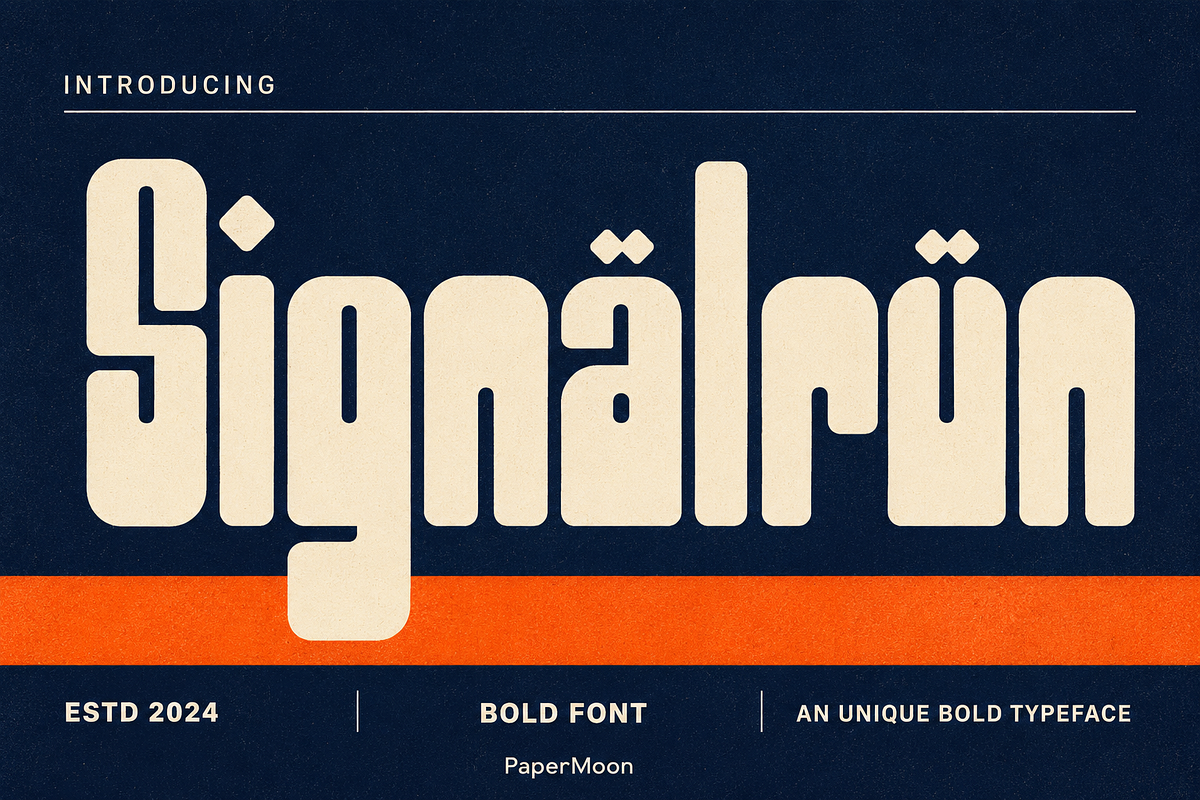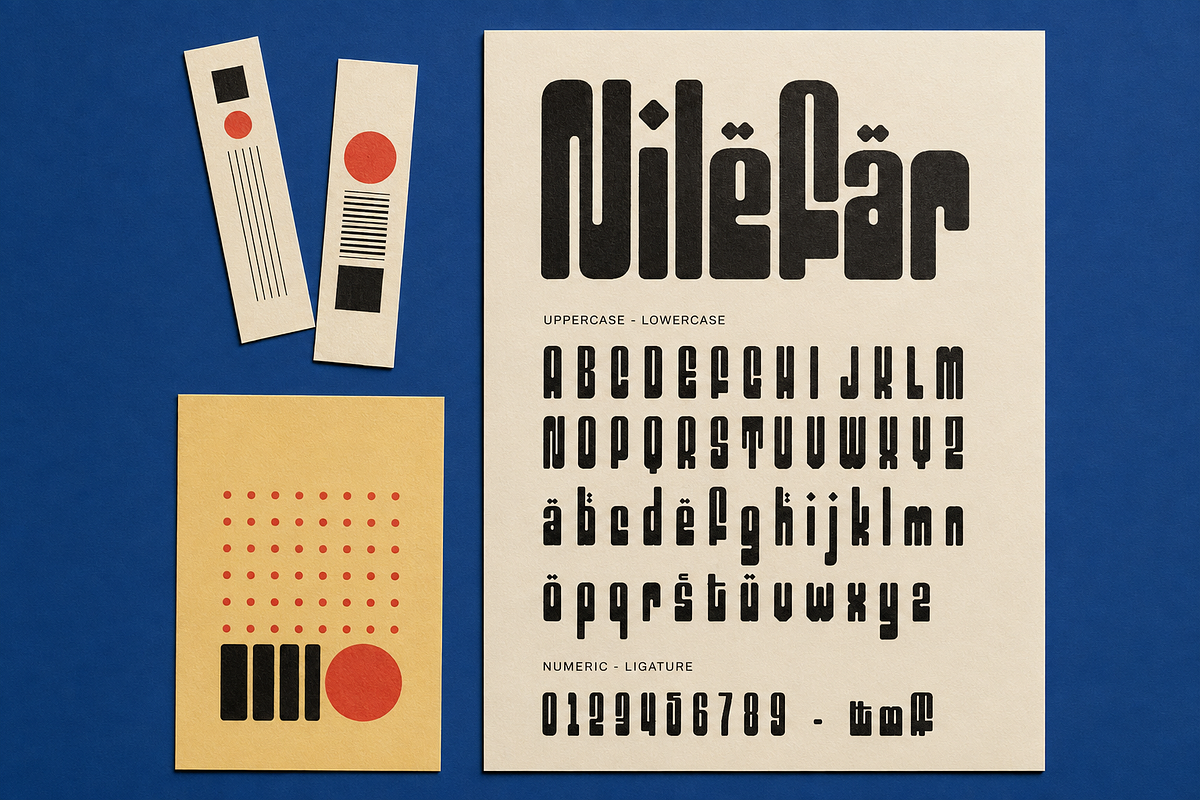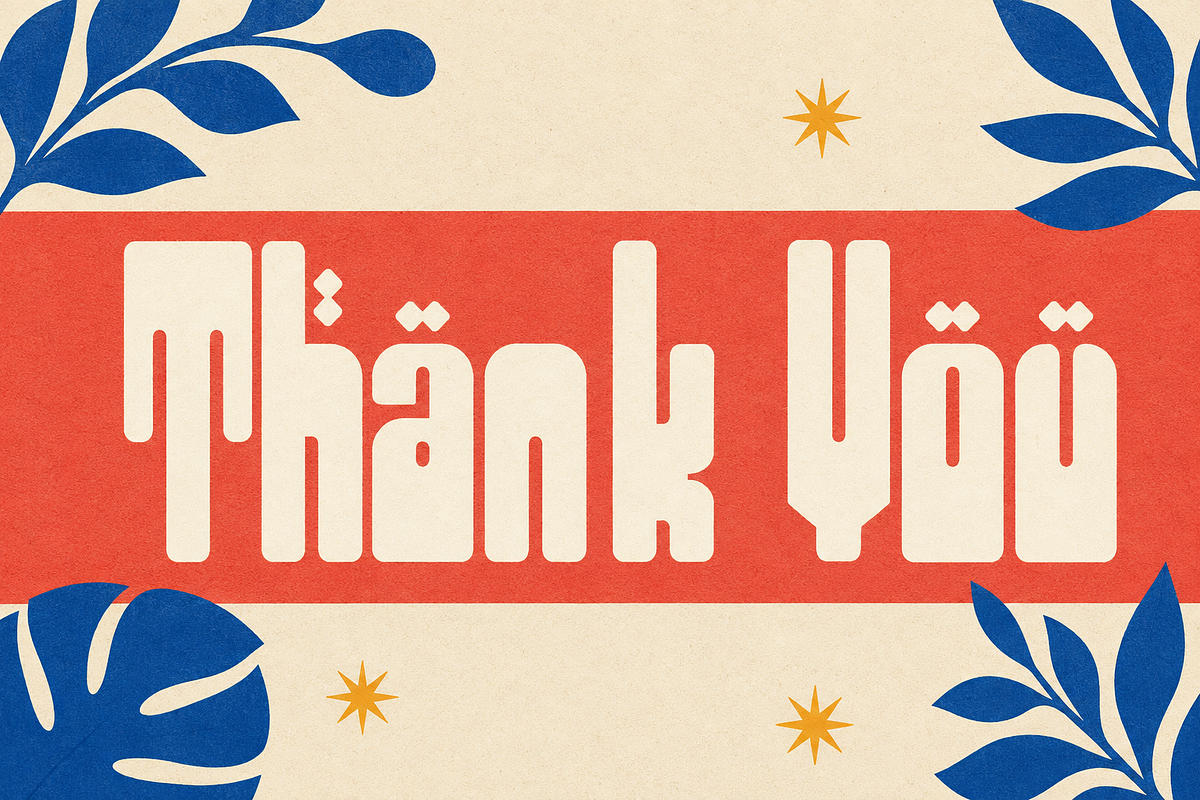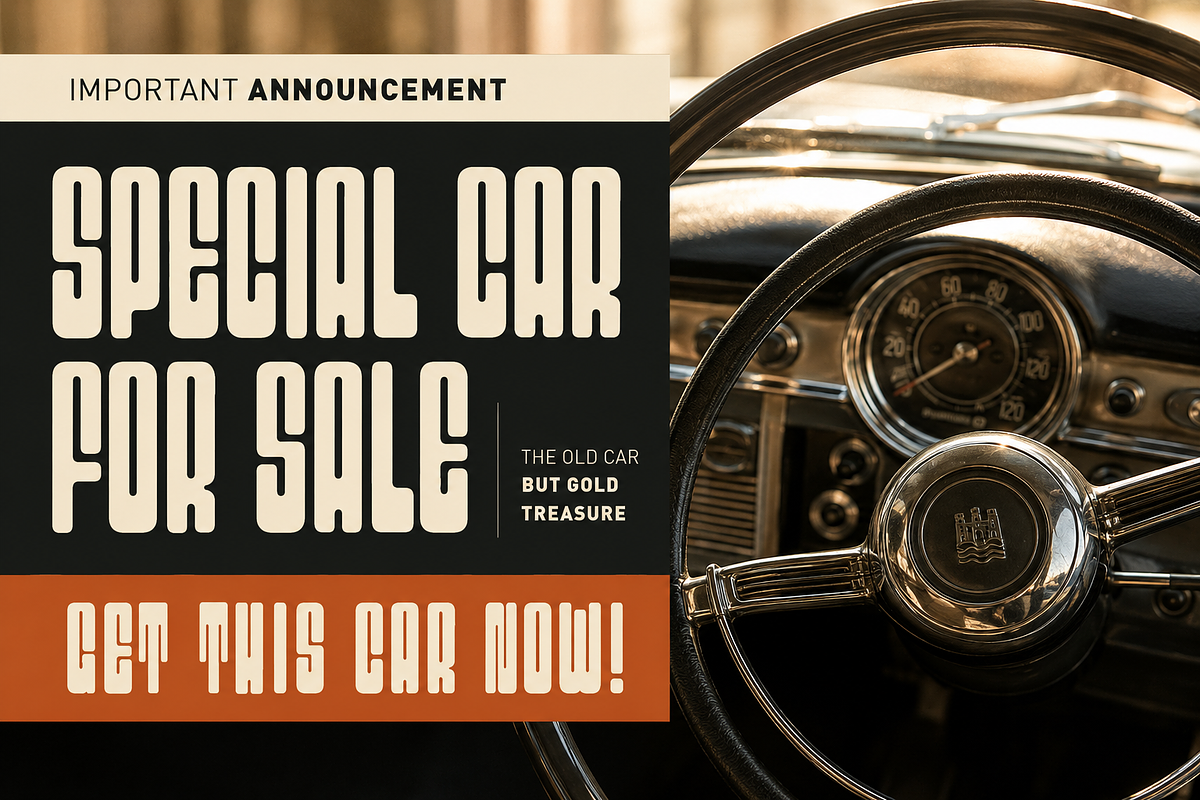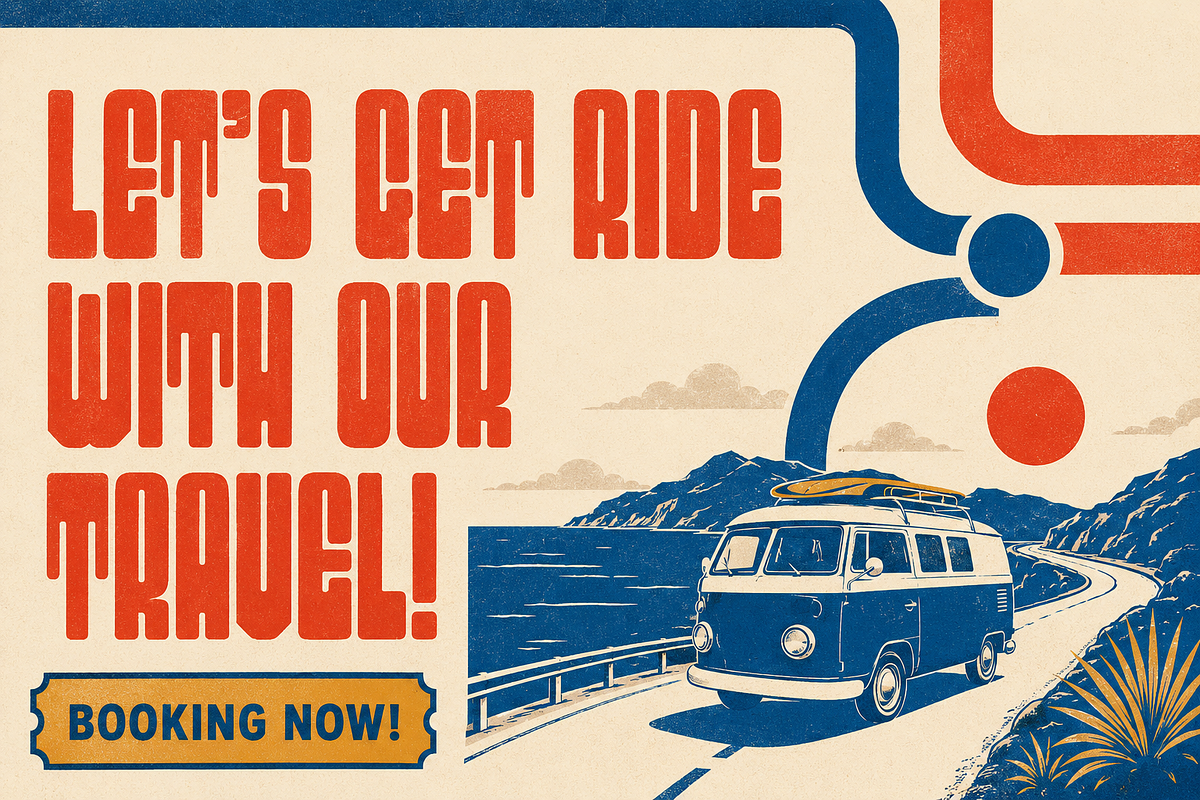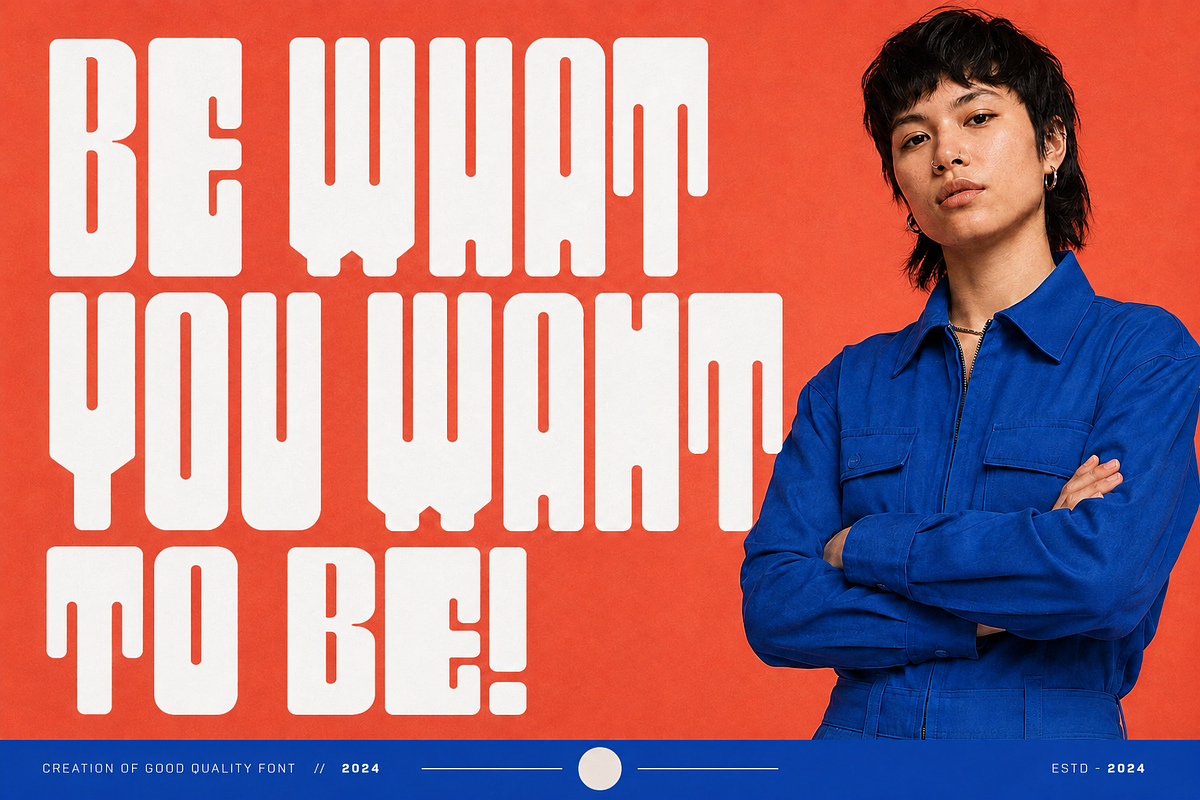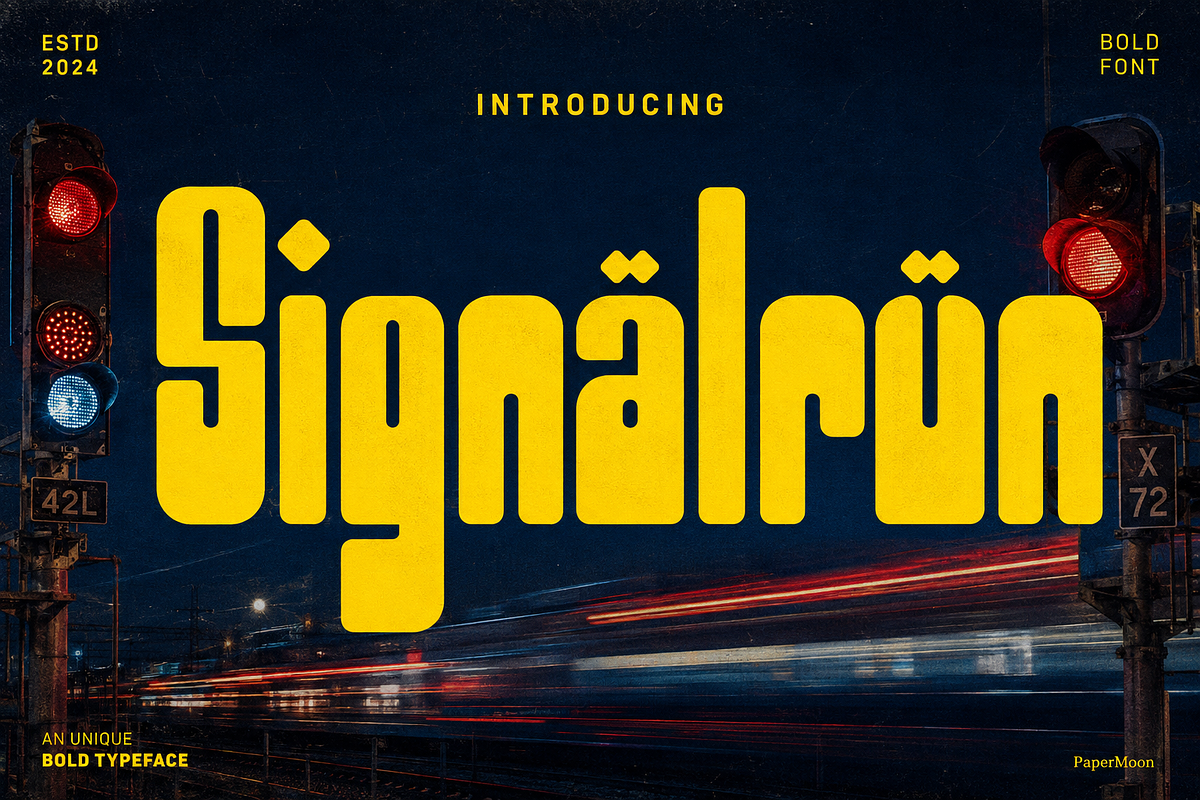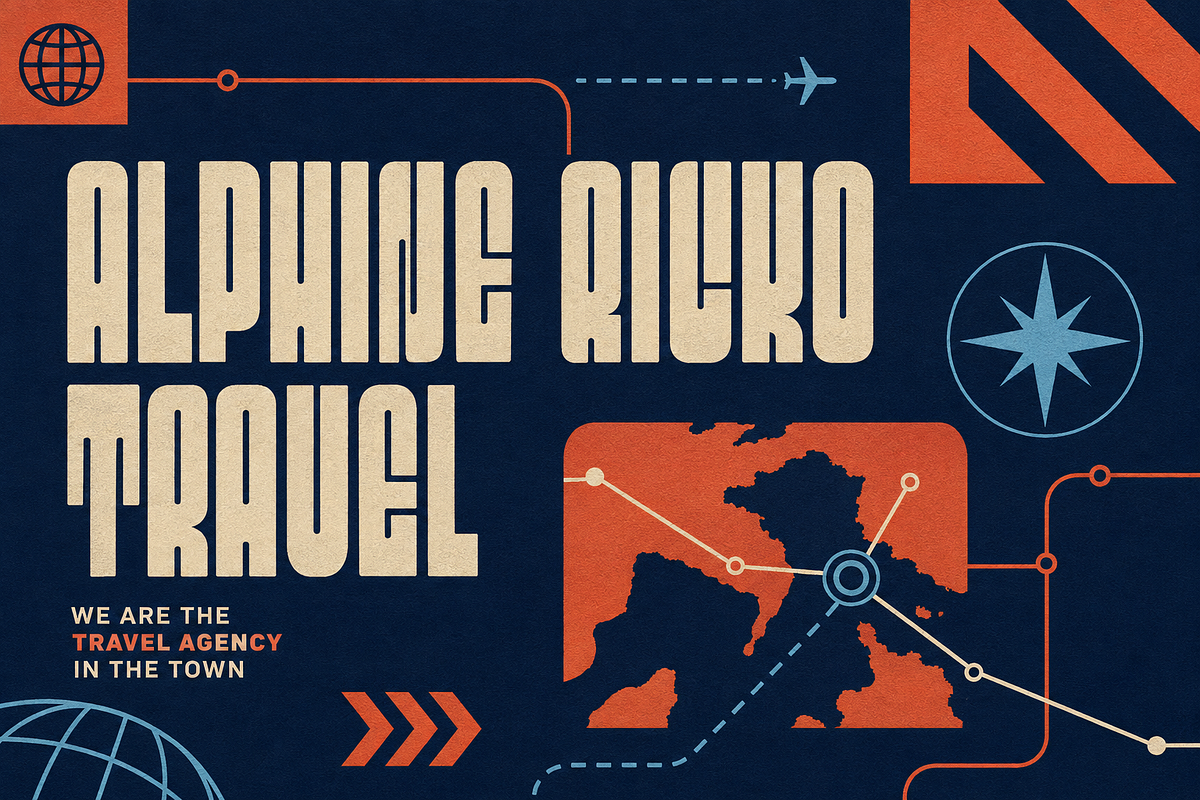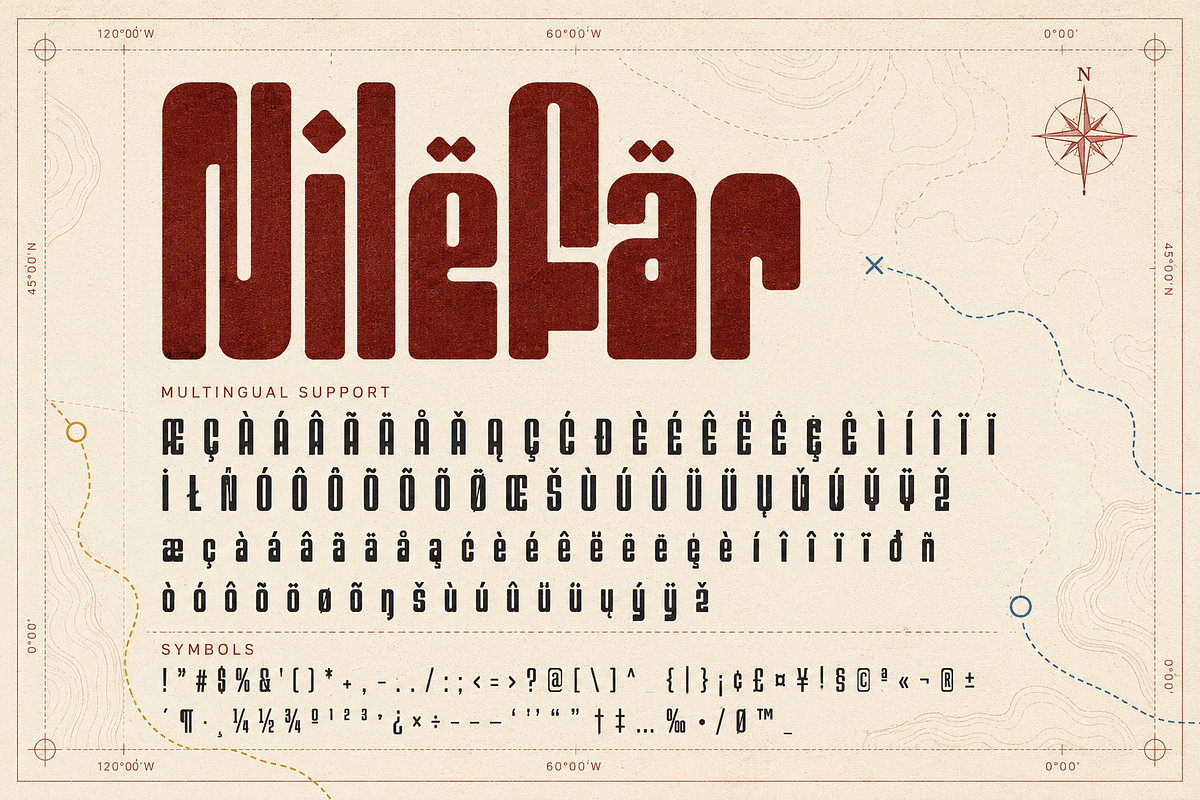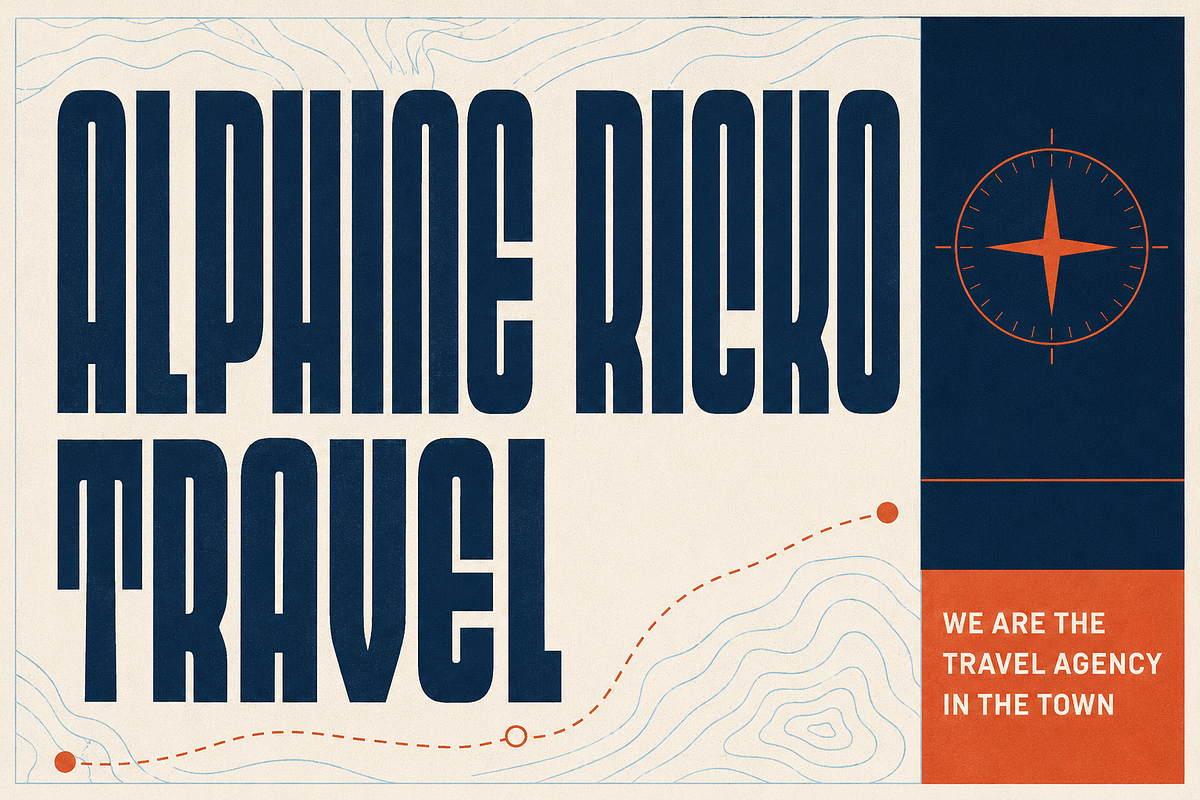
Signalrun - Bold Display Typeface
Make a headline impossible to overlook. Signalrun is a bold display typeface with strong, expressive forms that give logos, posters, packaging, and brand names an immediate visual presence.
Signalrun is a single Regular style designed to work at display size. Its confident construction gives short words and phrases a clear point of view, whether you are building a new identity, creating a campaign graphic, or adding a high-impact title to a print or digital layout.
237 glyphs: Uppercase, lowercase, numerals, punctuation, symbols, and Latin Extended characters support a broad range of everyday display work.
OpenType ligatures and alternates: Add more expressive combinations in compatible design applications.
Kerning and positioning: OpenType spacing features help keep prominent lettering balanced.
Single Regular style: A focused display cut for strong headlines, logos, and short statements.
Use Signalrun for logo lettering, brand identity systems, posters, album or event graphics, packaging, labels, social media artwork, merchandise, website headings, and editorial titles. It is especially effective when one word or a compact phrase needs to carry the energy of the whole composition.